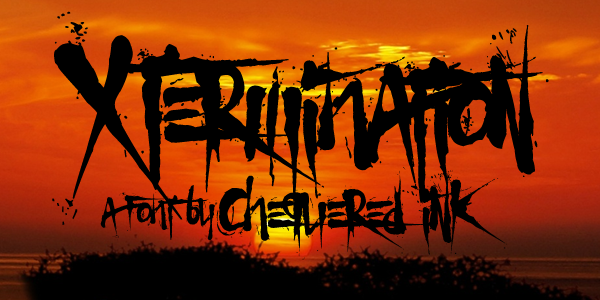
X Termination
Named for: Misspelling of “extermination”
Fun fact about this: Cody Rhodes uses it in WWE for his “American Nightmare” logo. However, he uses the F glyph for the final E, so it actually reads “American Nightmarf”.